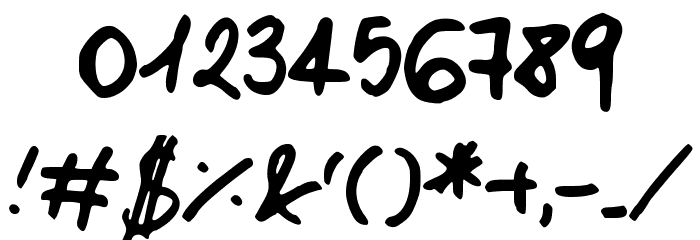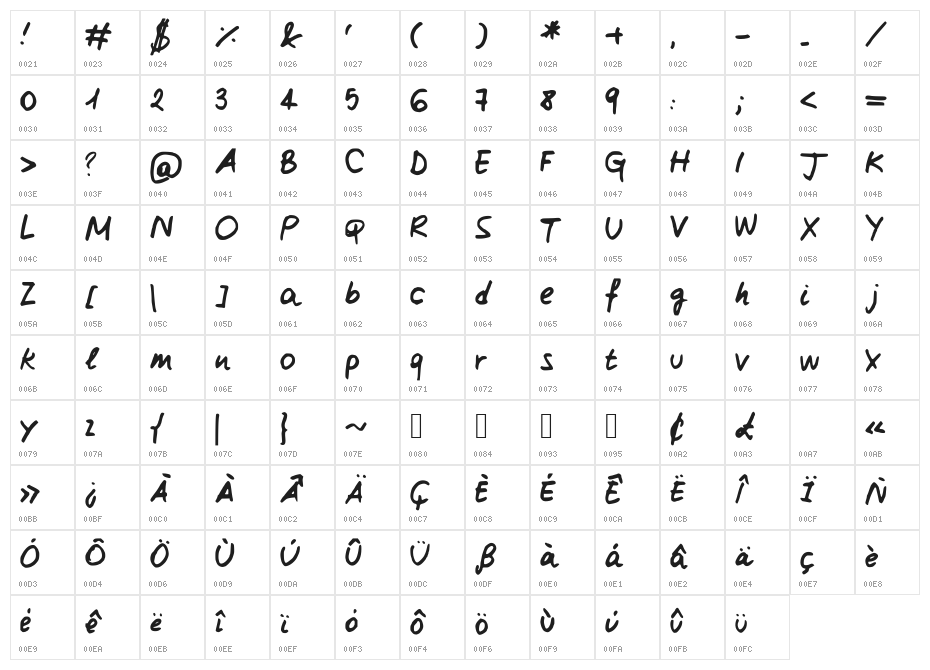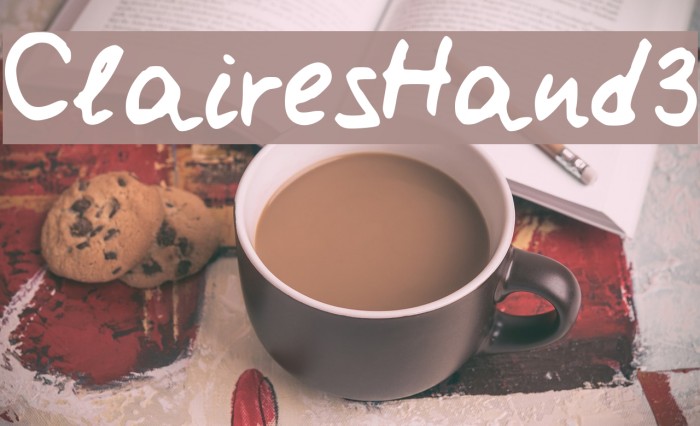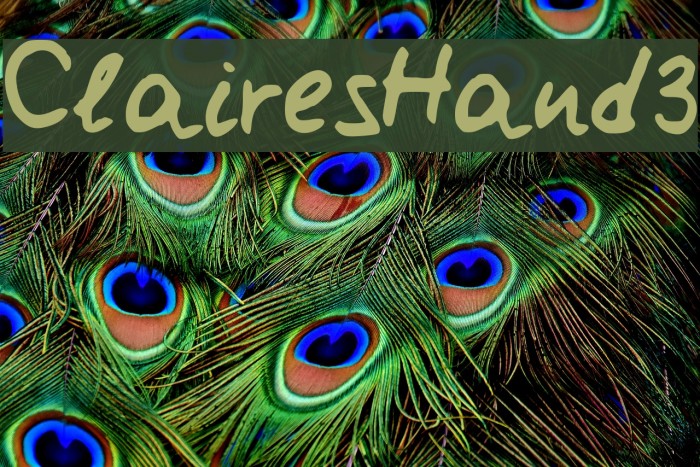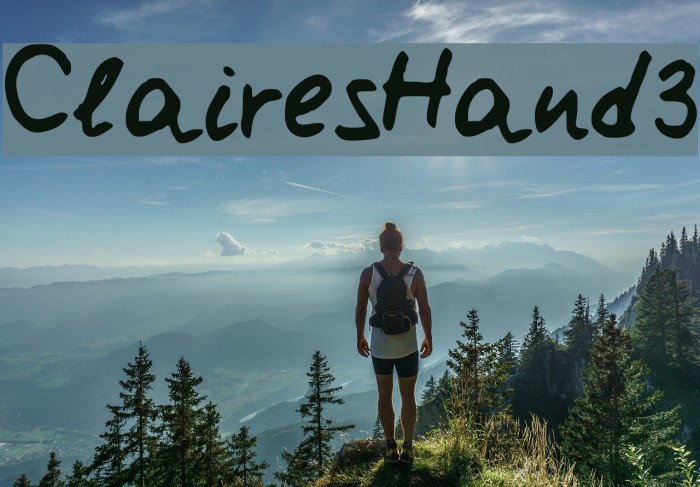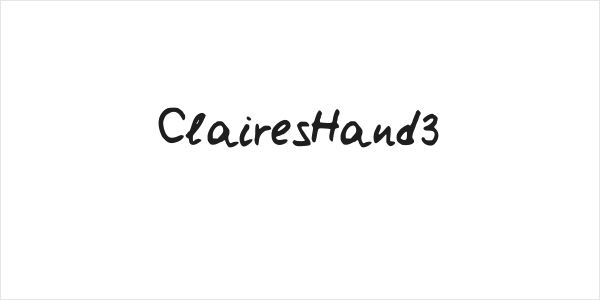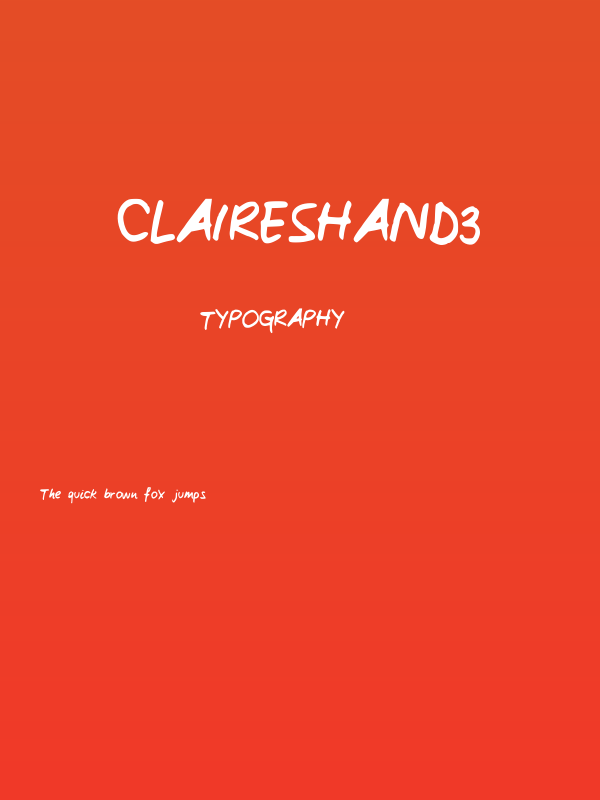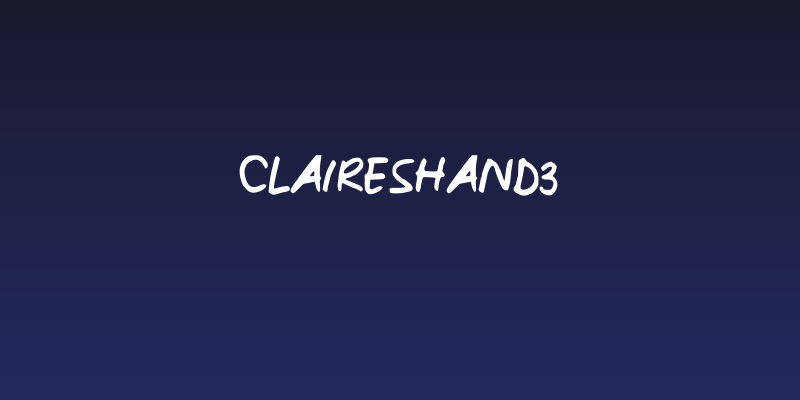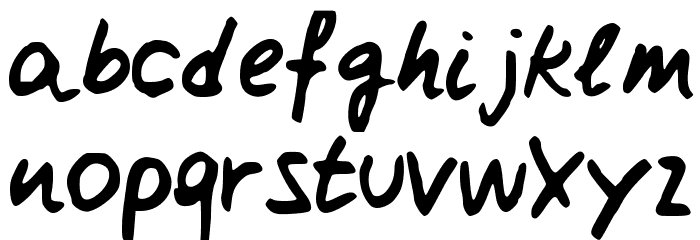
ClairesHand3 Font
ClairesHand3 Description
This font exudes a casual and friendly handwritten style, characterized by its smooth, flowing strokes and slightly irregular shapes that mimic natural handwriting. The uppercase letters are bold and confident, while the lowercase letters maintain a playful and approachable demeanor. The numbers and special characters are consistent with the overall style, ensuring a cohesive look across all text. The font's organic feel makes it ideal for projects that require a personal touch, such as invitations, greeting cards, or informal branding materials. Its legibility and charm make it versatile for various design applications.
CLAIRESHAND3 UPPERCASE
CLAIRESHAND3 LOWERCASE
CLAIRESHAND3 OTHER CHARS
| Overall Style | Casual, Friendly |
| Use Case | Headlines, Informal text, Personal projects |
| Proposed Projects | Ideal for invitations, greeting cards, personal branding, and informal design projects. |